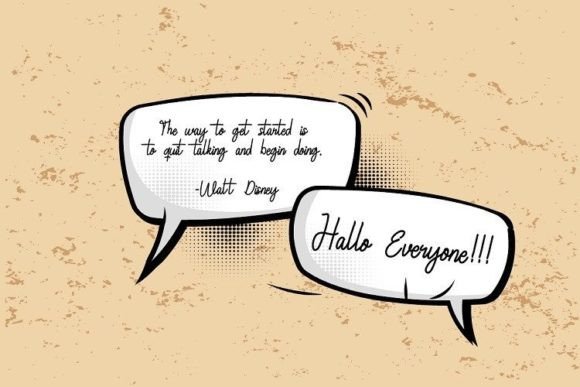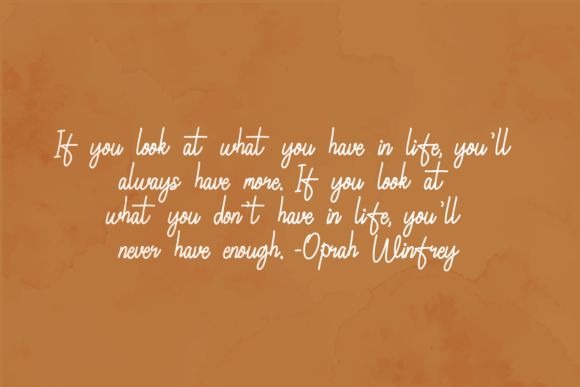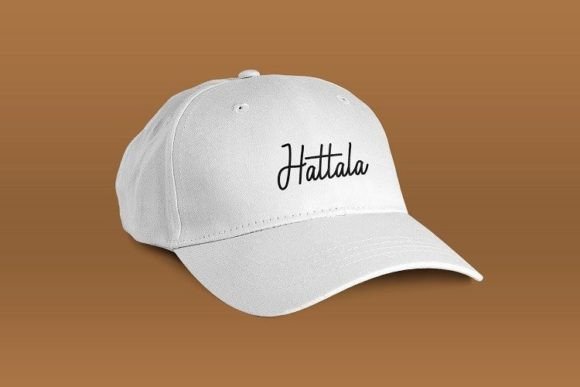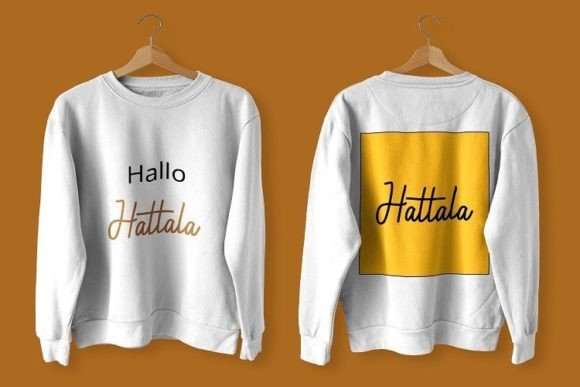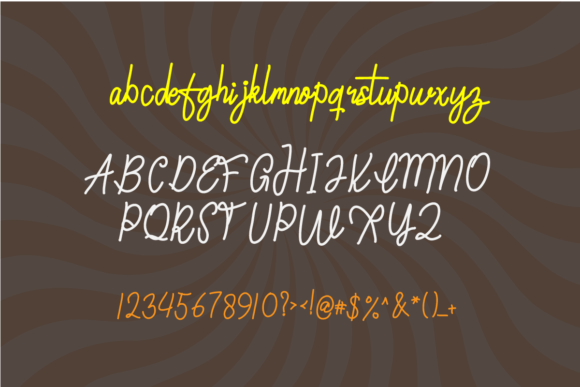
Introduction to Hattala Font
Have you ever found yourself rummaging through a vintage market, searching for that perfect, one-of-a-kind font to give your creative project a unique touch? As designers, we’ve all been there – staring at a blank canvas, eager to bring our vision to life. And then, it happens – you stumble upon a hidden gem, a font that not only adds character but also tells a story. For those seeking a sweet and quirky touch, look no further than the Hattala Font.
This charming hand-drawn typeface, inspired by the Javanese language, is more than just a design resource – it’s a conversation starter. With its imperfect, handmade look, the Hattala Font adds a touch of whimsy to any project, from recipes to book illustrations, and everything in between.
Key Features of Hattala Font
- High-quality font design with a transparent background, ideal for creative projects that require a clean and modern look.
- Unique characteristics: The Hattala Font features a unique blend of modern and minimalist design elements, making it perfect for creative projects that require a touch of elegance and sophistication.
- Perfect for use in logos, branding materials, website headers, and other design elements where a clean and modern look is required.
- Can be used in various creative projects, including graphic design, digital art, and typography, making it a versatile design resource.
Honest Review: Hattala Font
Here are the things that worked well for me: ✨
- The Hattala Font has a unique, elegant design that adds a touch of sophistication to any text.
- It’s highly versatile and can be used for a wide range of design projects, from headers to body text.
- The font is available in a transparent background option, making it perfect for creating beautiful overlays and graphics.
However, there are some limitations to consider: ⚠️
- The font may not be suitable for projects that require a more modern or bold aesthetic.
- Some users may find the font a bit too ornate or complicated to work with.
Tips for Getting the Most Out of Hattala Font
For the best results, use the Hattala Font on a transparent background to give your design a clean and modern look.
– Experiment with different font sizes and colors to find the perfect combination for your creative project.
Common Use Cases for Hattala Font
The Hattala Font is a versatile design resource that can be used in a variety of creative projects, including:
– Logo designs
– Branding materials
– Print materials